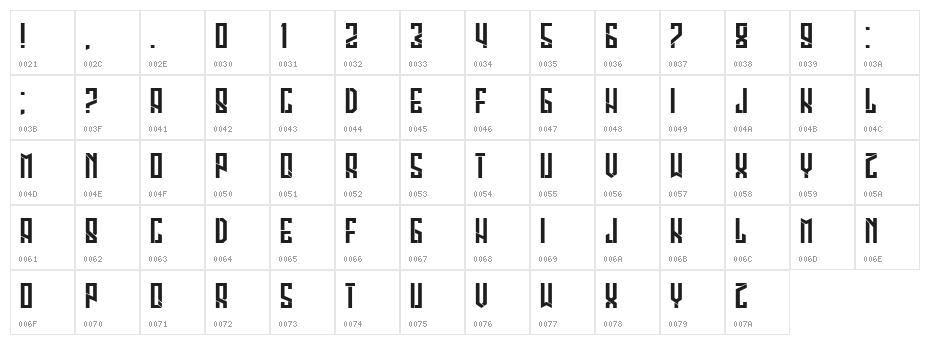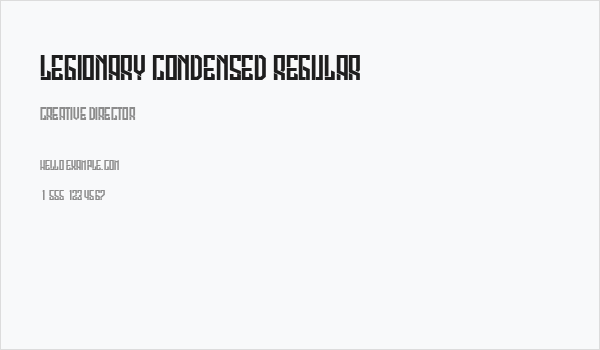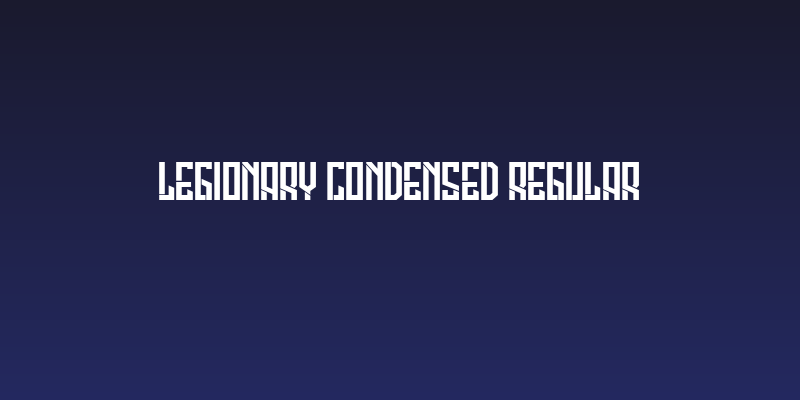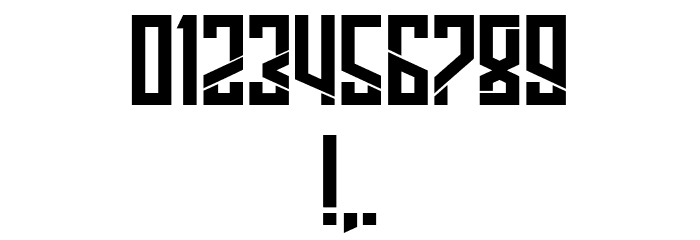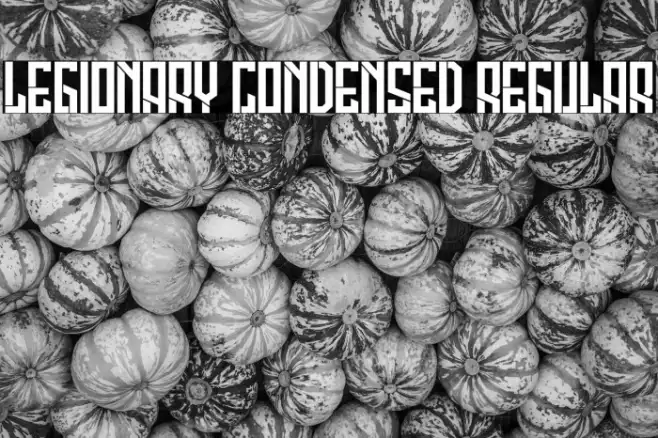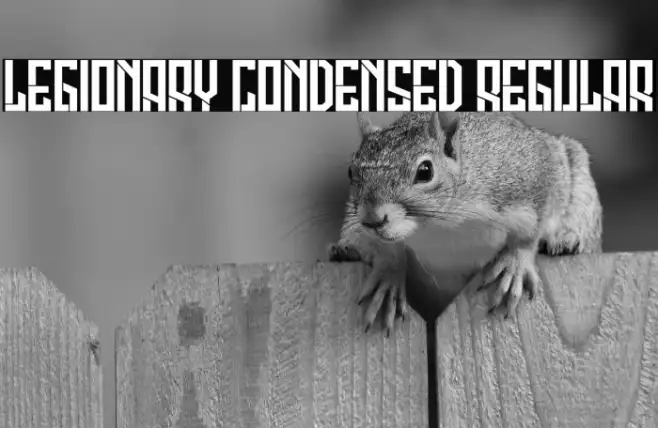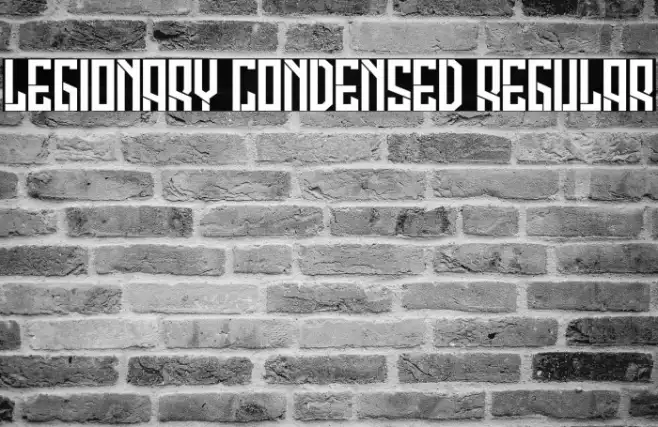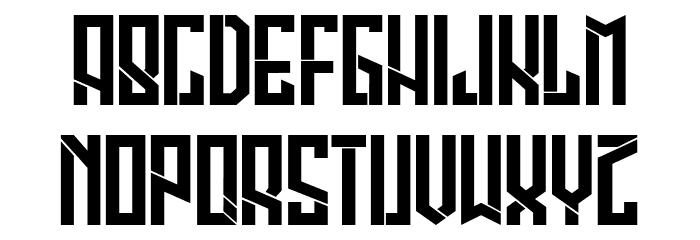
Legionary Condensed Regular Font
Legionary Condensed Regular Description
This font features a bold and geometric design with a condensed structure. The characters are constructed with sharp angles and straight lines, giving it a futuristic and industrial feel. The uppercase letters are particularly striking, with unique cutouts and angular forms that create a sense of movement and energy. The numbers and special characters maintain this aesthetic, ensuring consistency across all glyphs. The overall appearance is modern and dynamic, making it suitable for projects that require a strong visual impact.